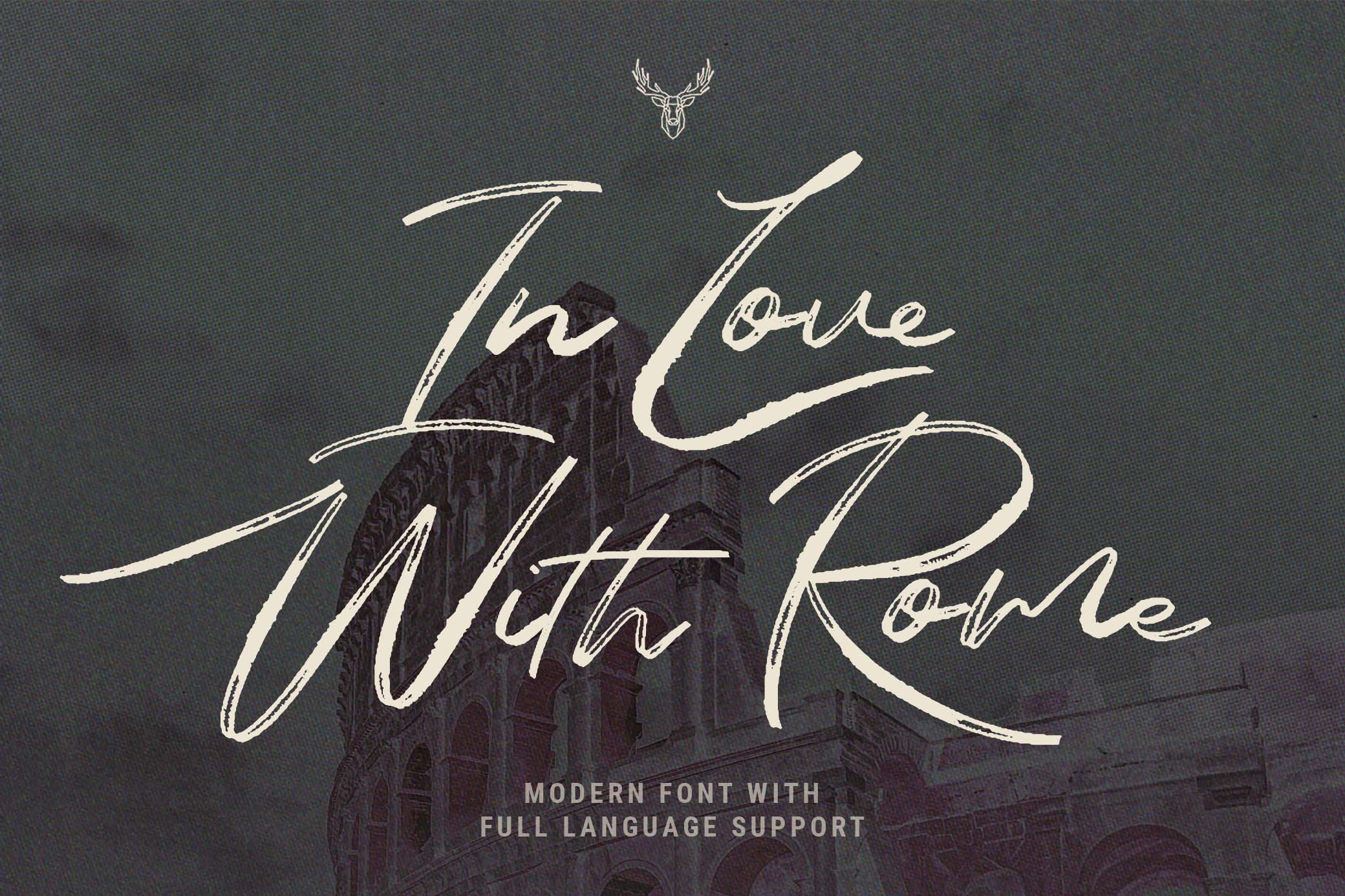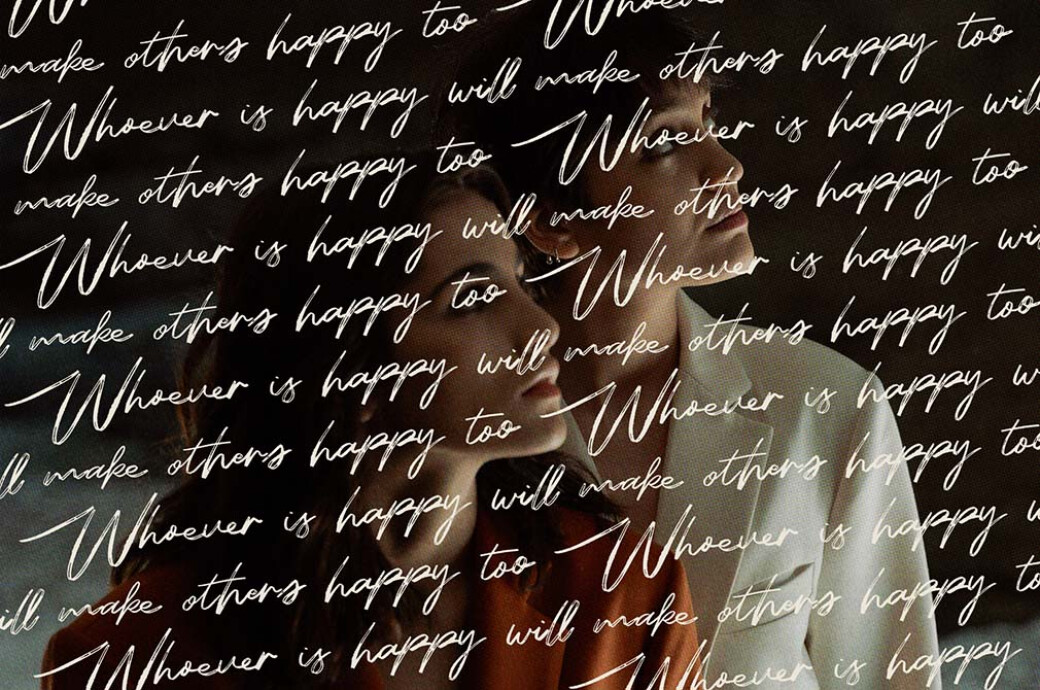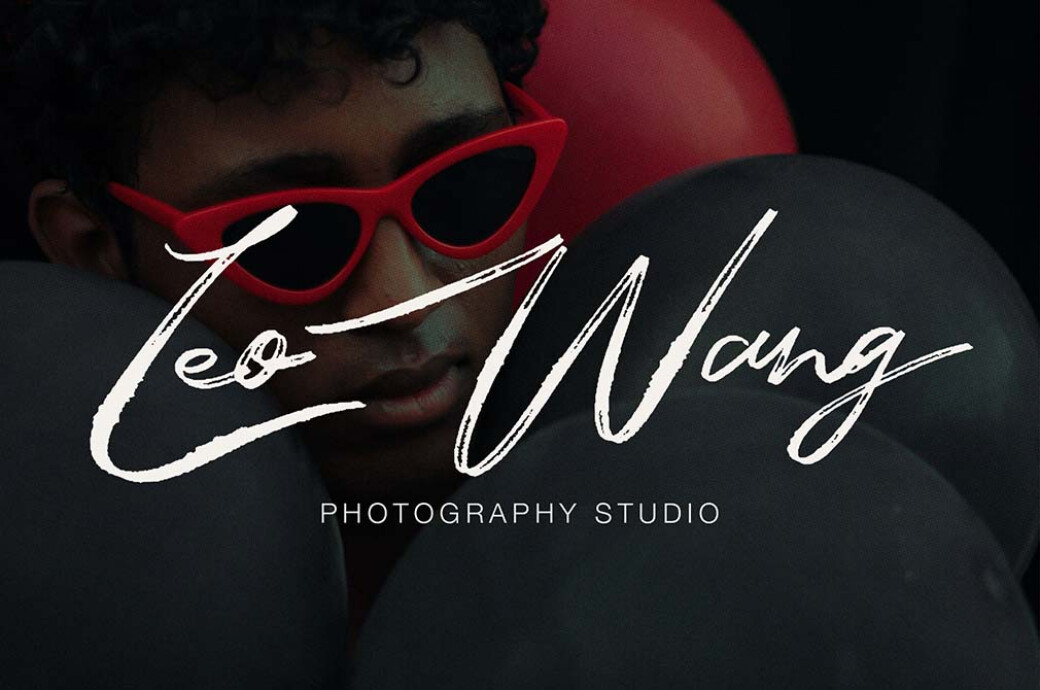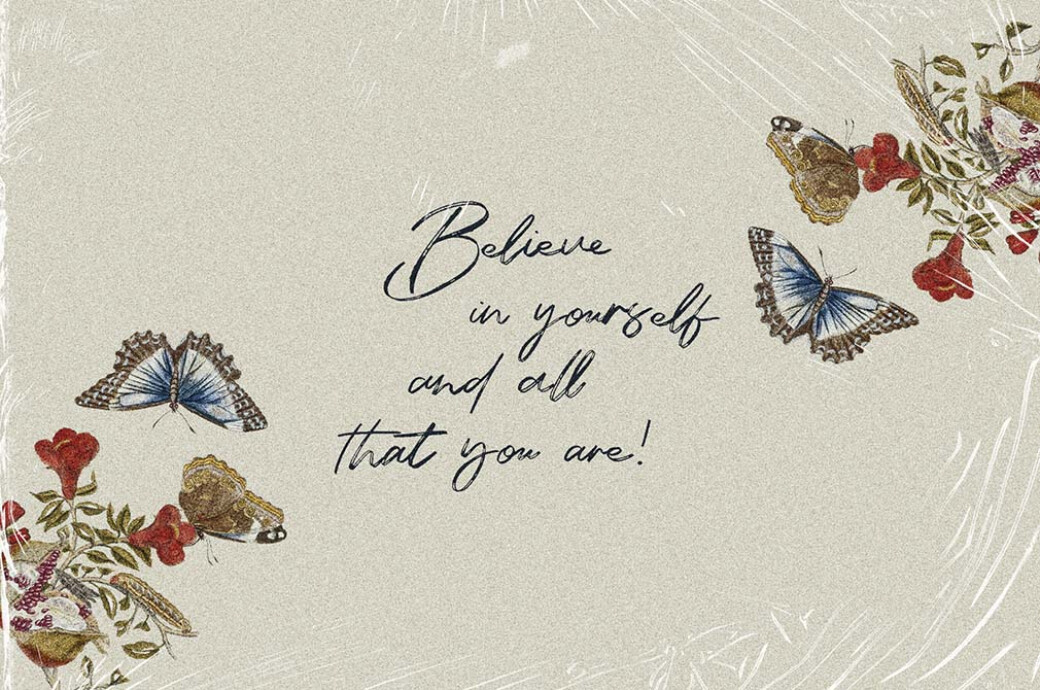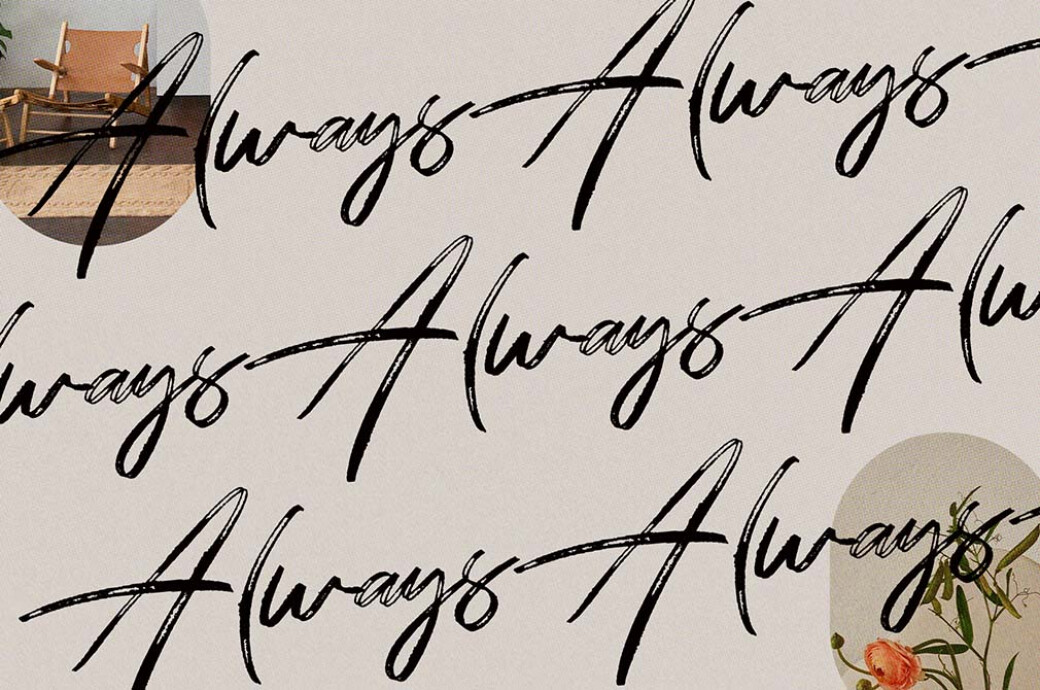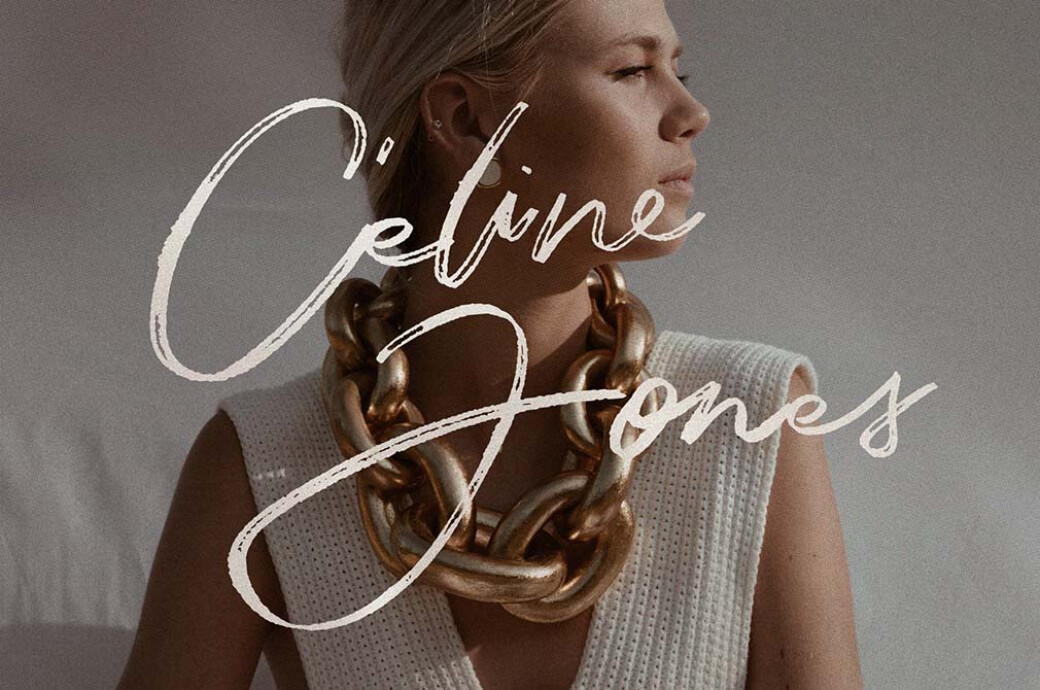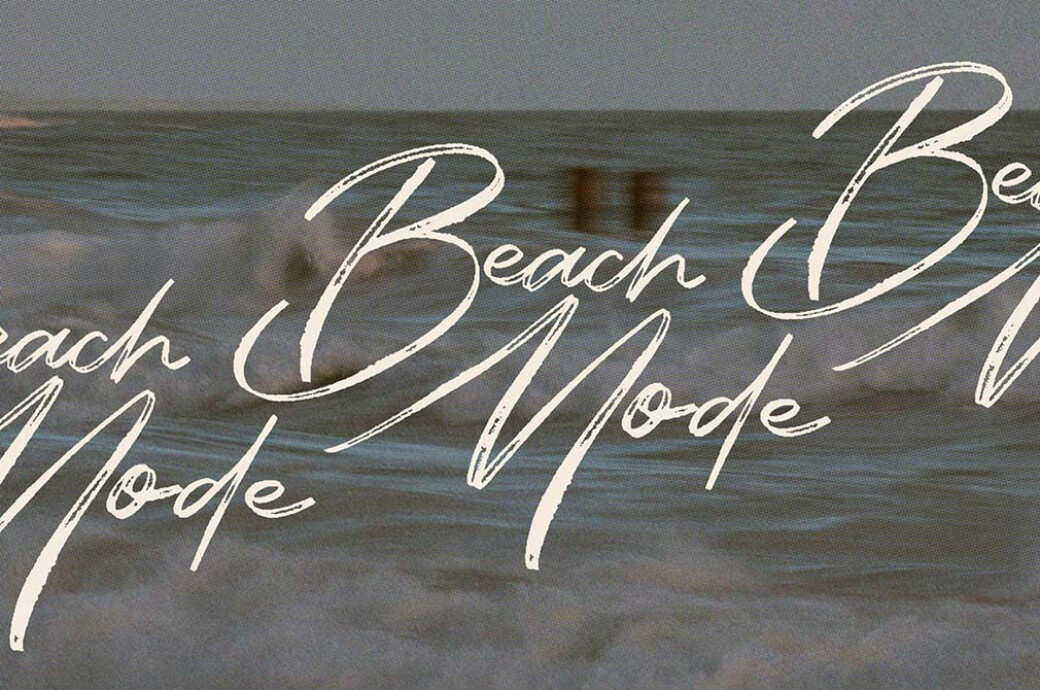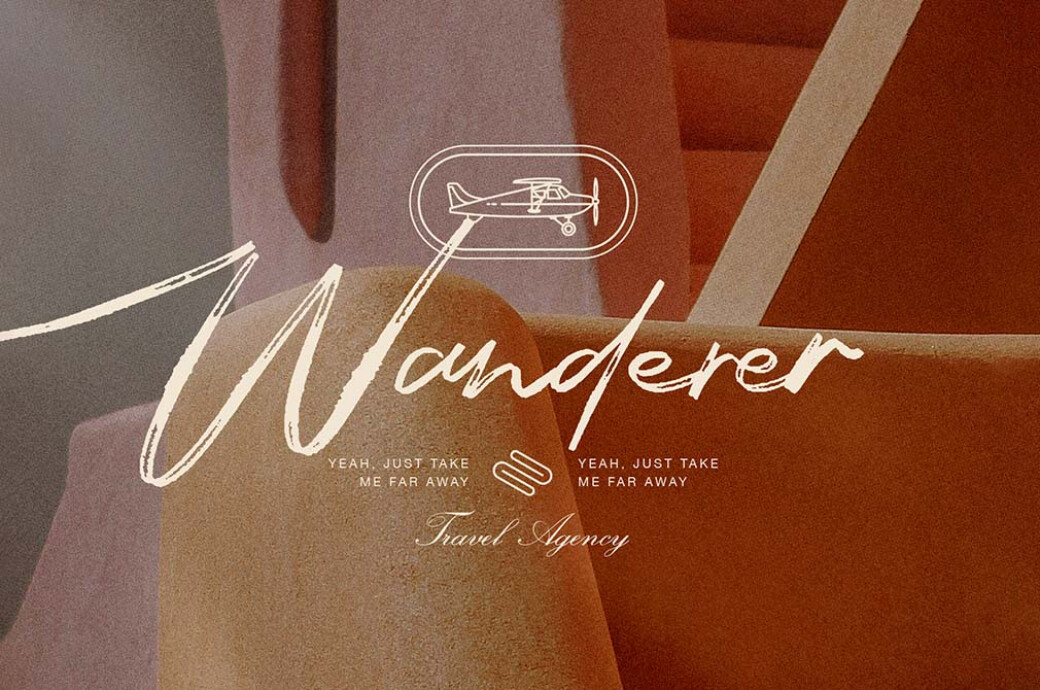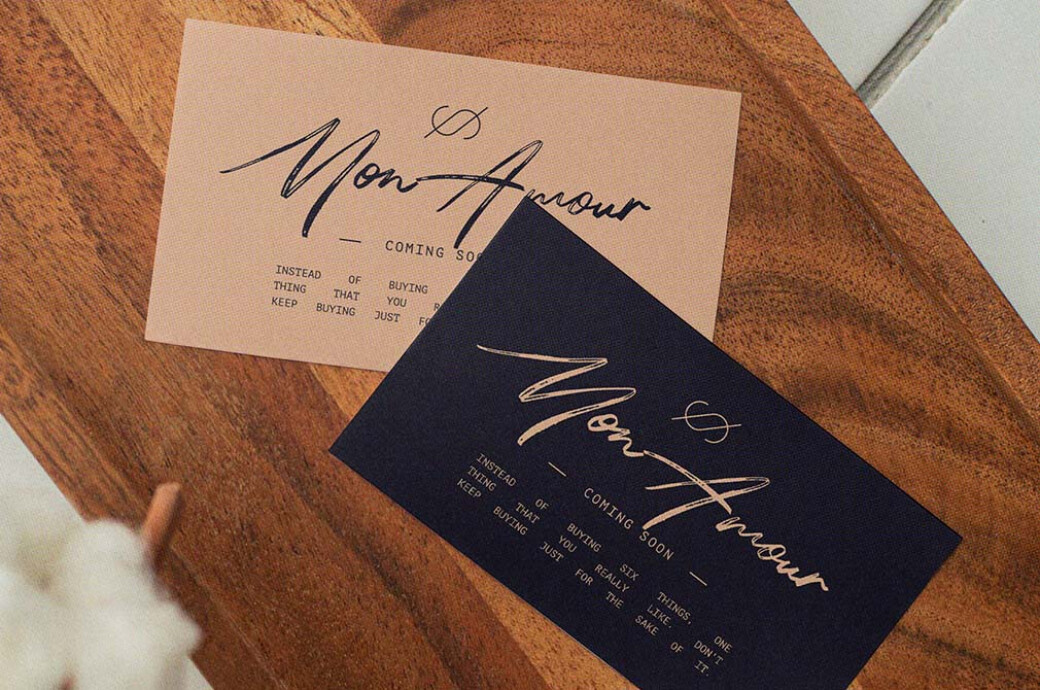
In Love With Rome Script Font
What font would Audrey Hepburn use to sign a postcard from her Roman Holiday? We're sure it would be some elegant handwritten script: not too fancy and a little quirky.So if you ask us, we'd suggest In Love With Rome for such a royal feature, as it's a perfect incarnation of the city. Moreover, it embraces old Hollywood vibes and modern typographic trends, meaning you can use it for many projects. For example, mood boards, social media posts, business cards, logos, or product packaging. The pack includes a complete set of characters, full language support, and over 274 ligatures and alternates, so nothing can hold your creativity and imagination.